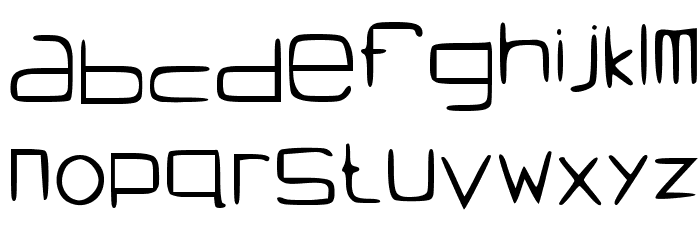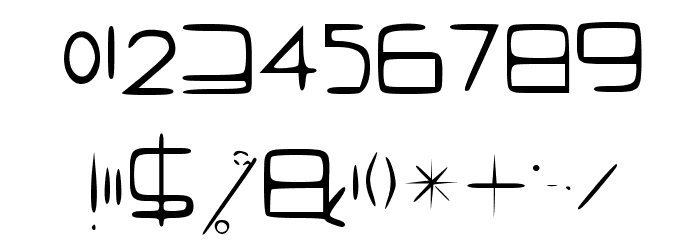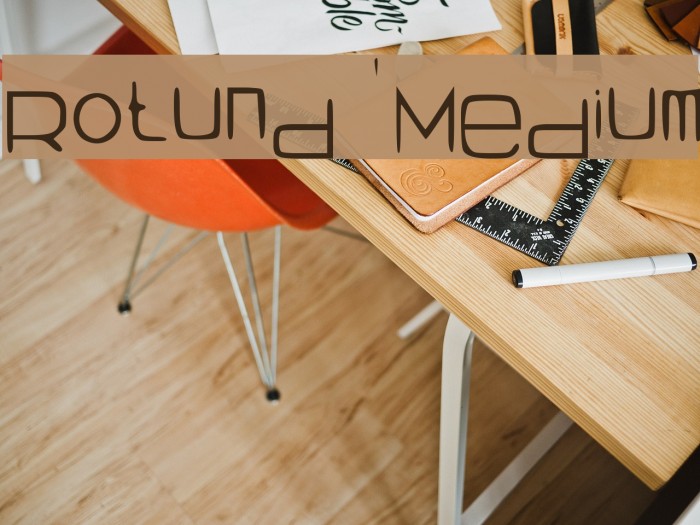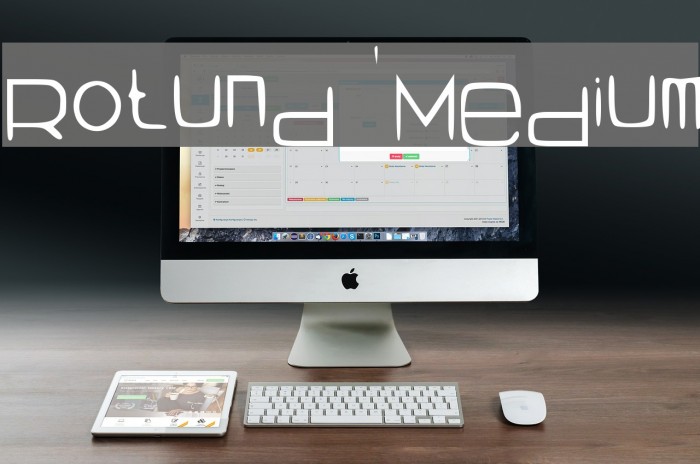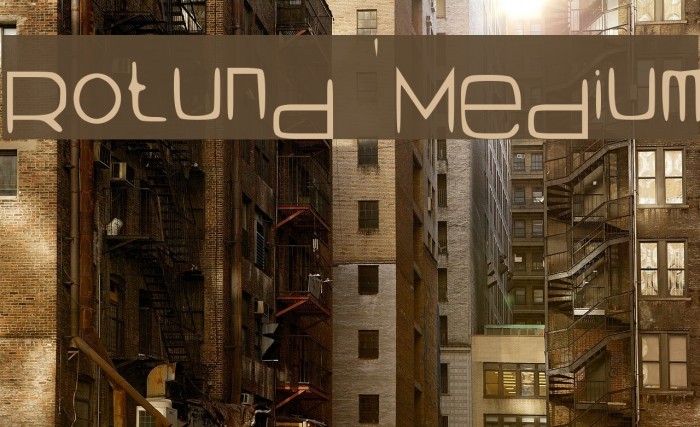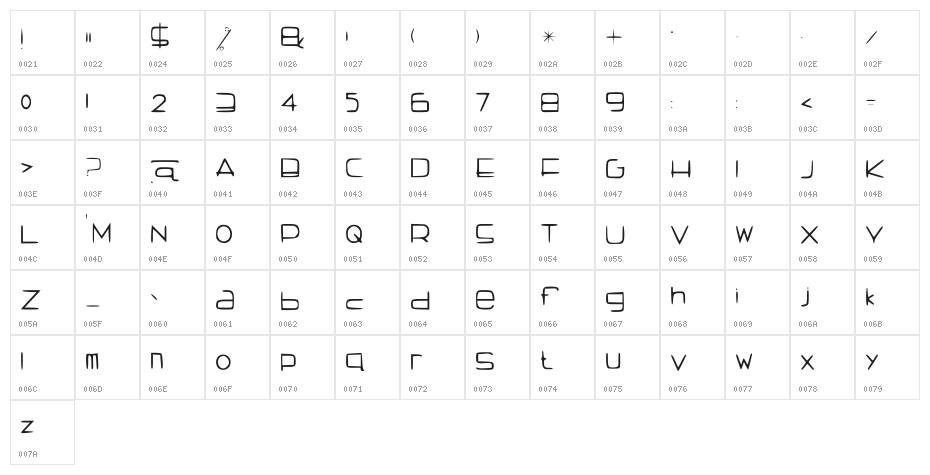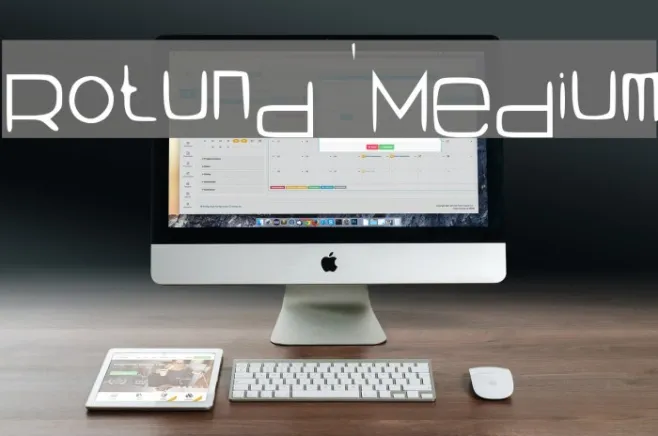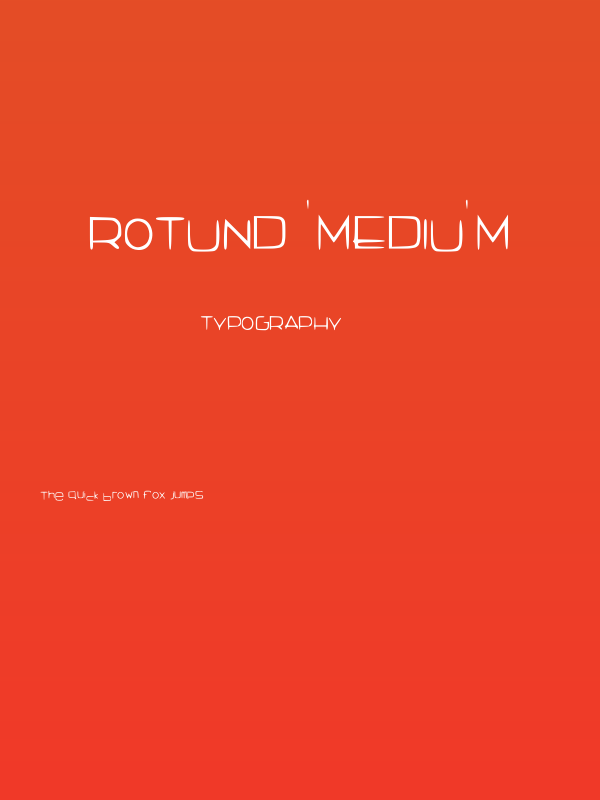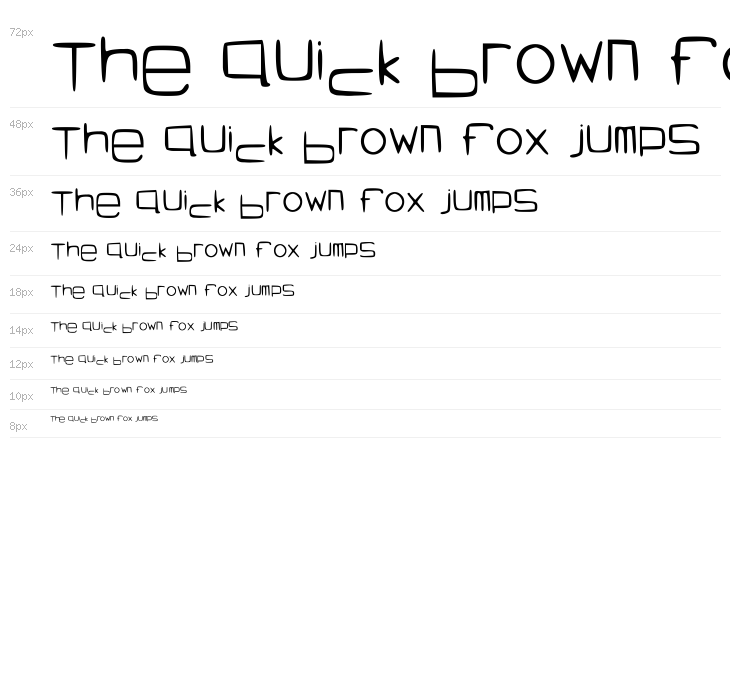
Rotund Medium Font
This font features a unique blend of geometric and rounded elements, creating a modern and approachable aesthetic. The uppercase letters are characterized by their uniform height and slightly condensed form, while the lowercase letters maintain a consistent roundness that adds to the font's friendly appearance. The numerals are distinct and easy to read, with a consistent stroke width that complements the overall design. Special characters are thoughtfully designed, maintaining the font's cohesive style. The smooth curves and clean lines make it suitable for a variety of applications.
A modern, rounded font with geometric influences and consistent stroke width.
- Proposed Projects: Ideal for branding, packaging, and digital interfaces where a modern and friendly appearance is desired.
- Use Case: Logos, Headlines, Digital Interfaces